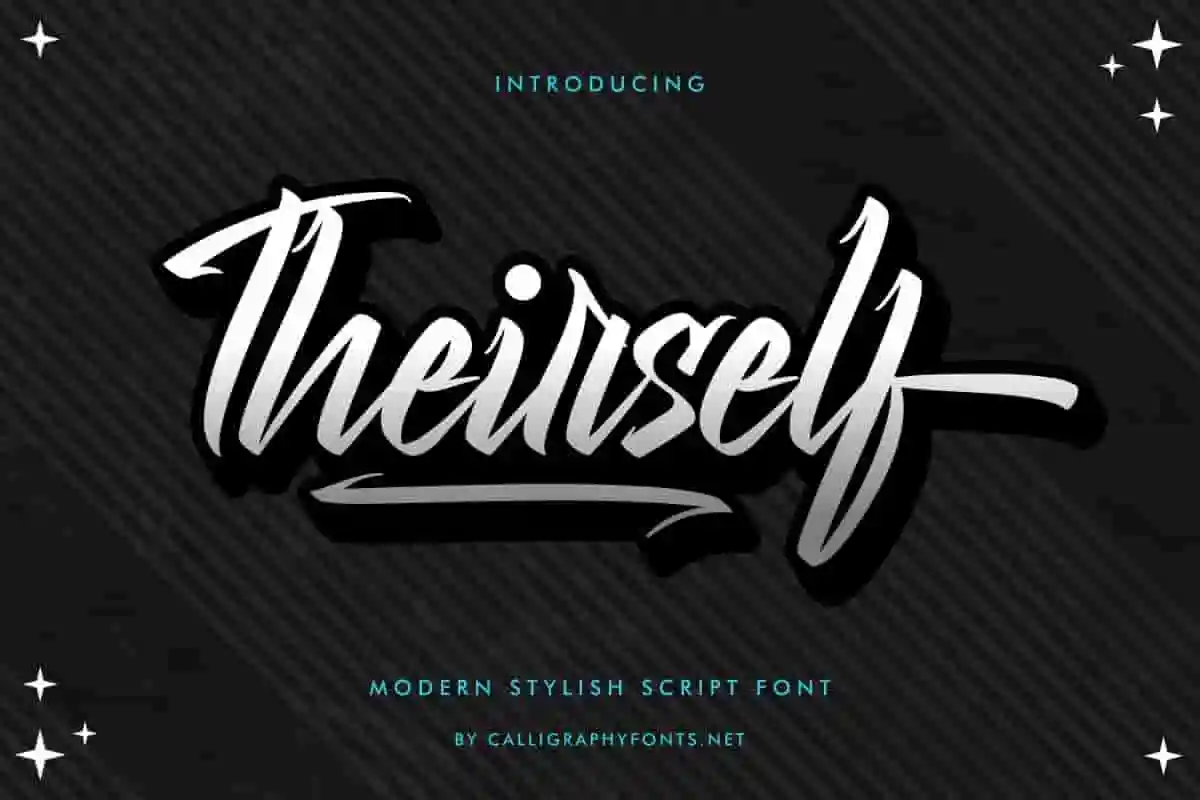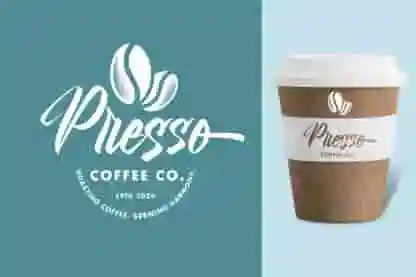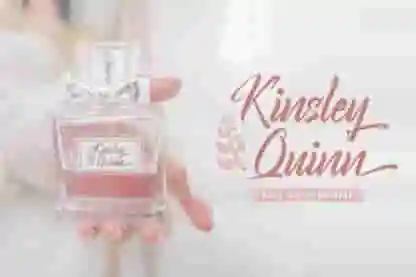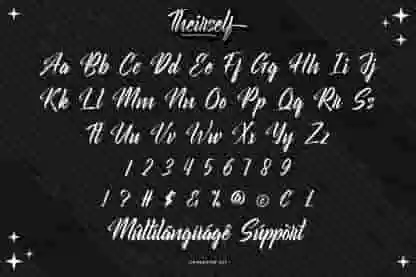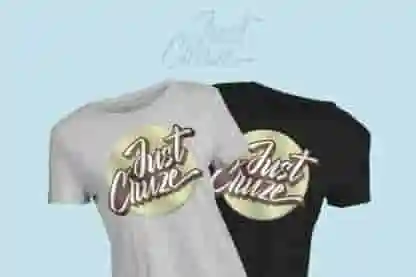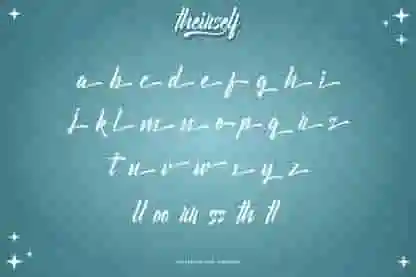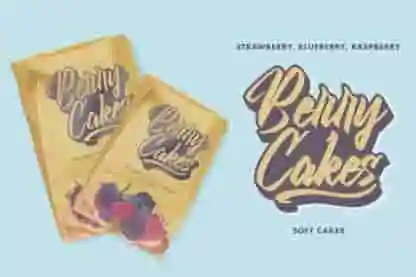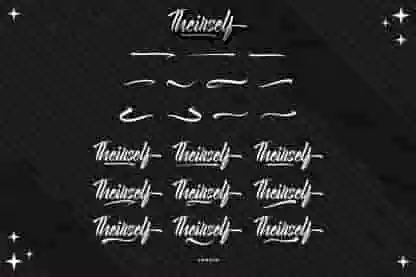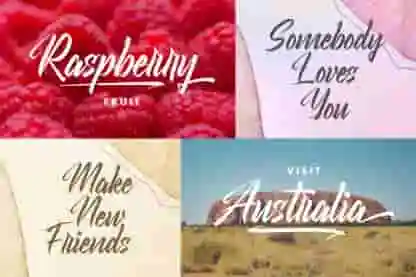
Theirself Font
Theirself Font is a handwritten calligraphy script font by CalligraphyFonts.net. Download Theirself Font for any commercial purposes now!
Theirself Font is a handwritten calligraphy script font. It has special looks that are beautiful, modern, elegant, luxury, lettering and sophisticated brush font.